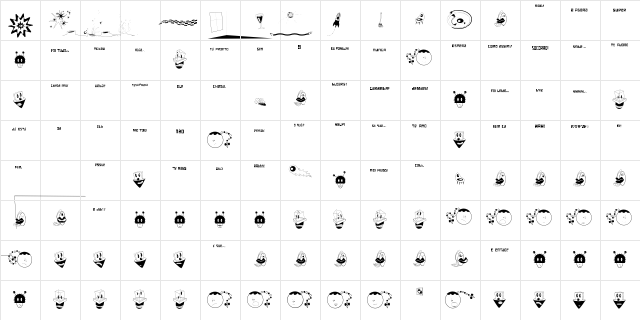
Cryptocomix10 Regular
Design Context for Cryptocomix10
Cryptocomix10 is a composed and adaptable typeface that performs quietly and consistently across a wide range of design contexts.